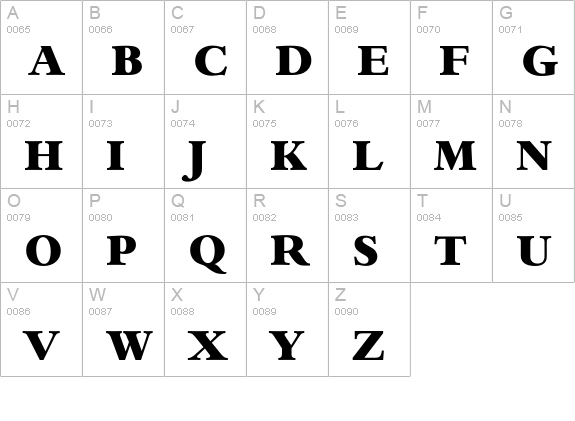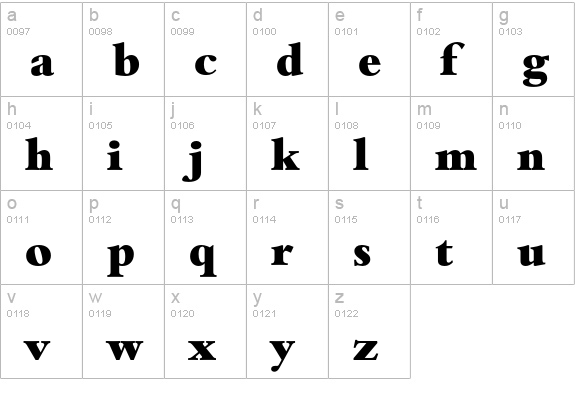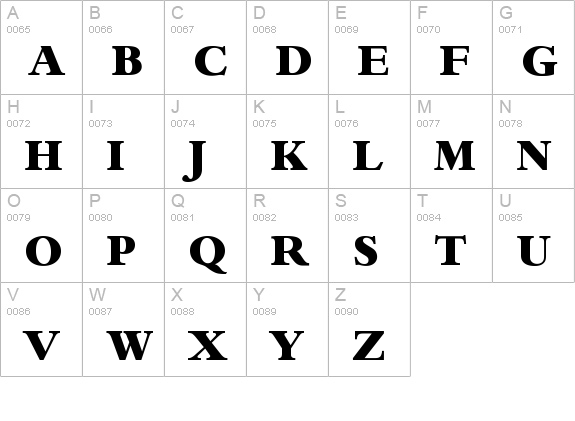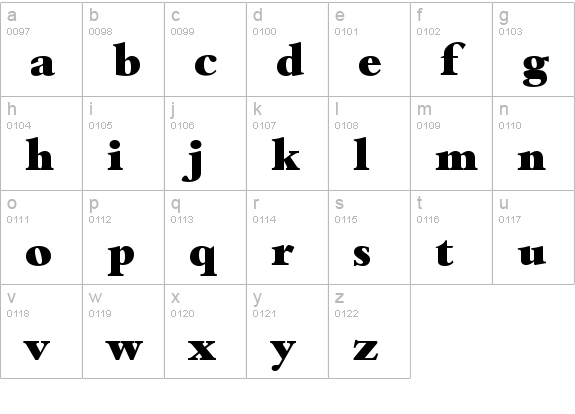
Bamberg-ExtraBold is an extra-heavy, attention-grabbing variant in the Bamberg typeface family \xE2\x80\x94 well suited to high-impact headlines, posters, and bold branding.
Bamberg-ExtraBold is a stunning and powerful display font that exudes confidence and authority. With its bold and commanding presence, this typeface demands attention and makes a bold statement. The thick, heavy strokes of Bamberg-ExtraBold give it a modern and impactful look, perfect for headlines, logos, and branding projects. What sets Bamberg-ExtraBold apart is not just its striking design, but also the fact that it is available for free download at FontsMarket.com. This means you can easily access this high-quality font and use it in your design projects without any cost. Whether you're working on a poster, website, or any other creative endeavor, Bamberg-ExtraBold is sure to make a lasting impression. Download Bamberg-ExtraBold for free today and add a touch of boldness and sophistication to your designs.